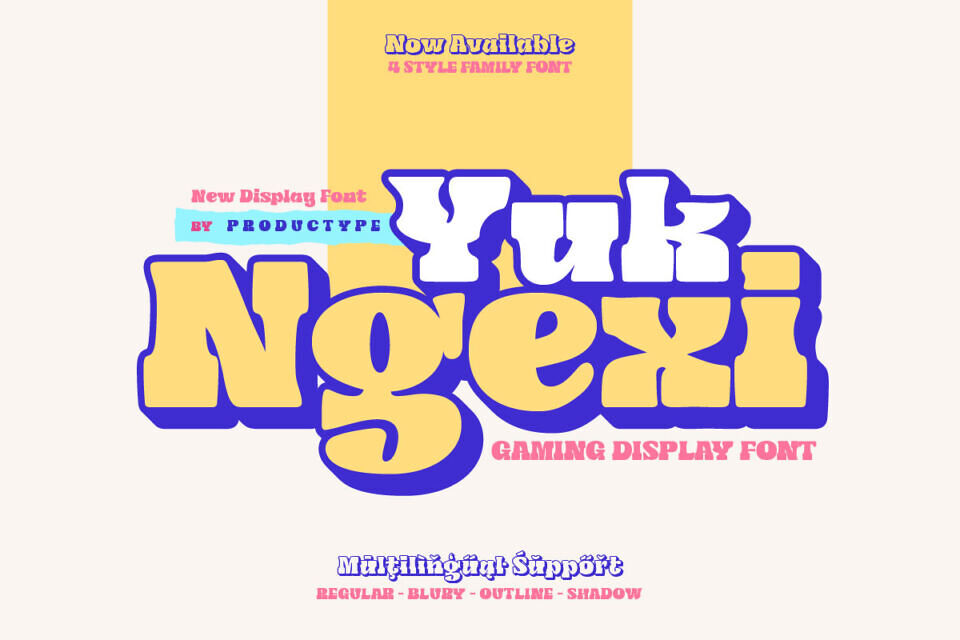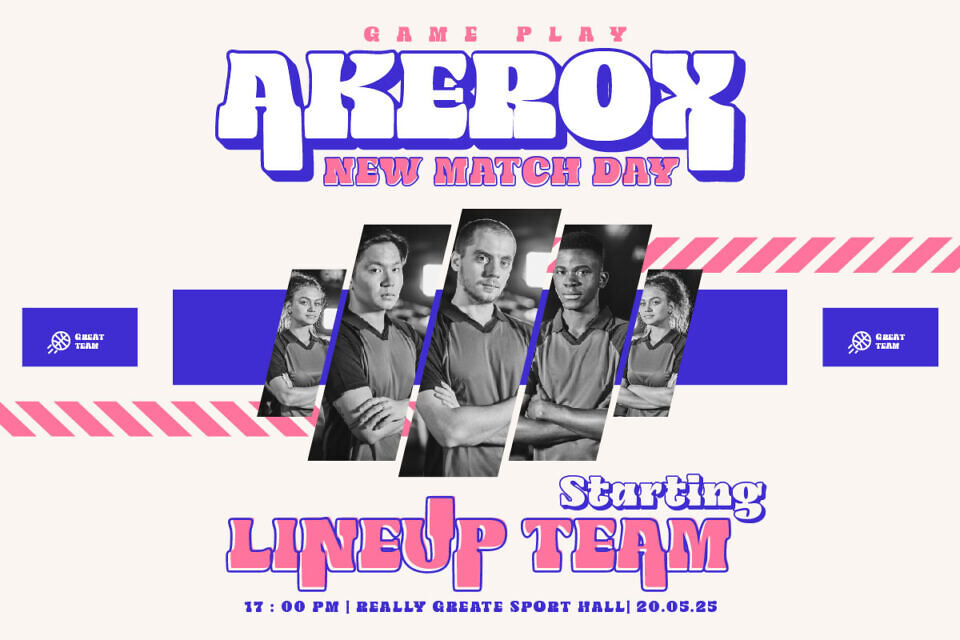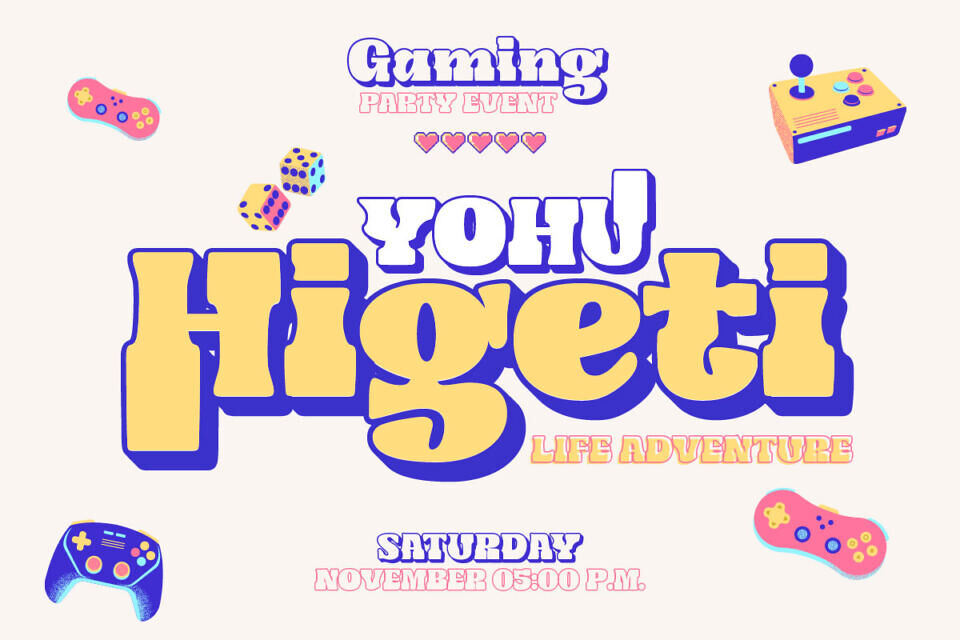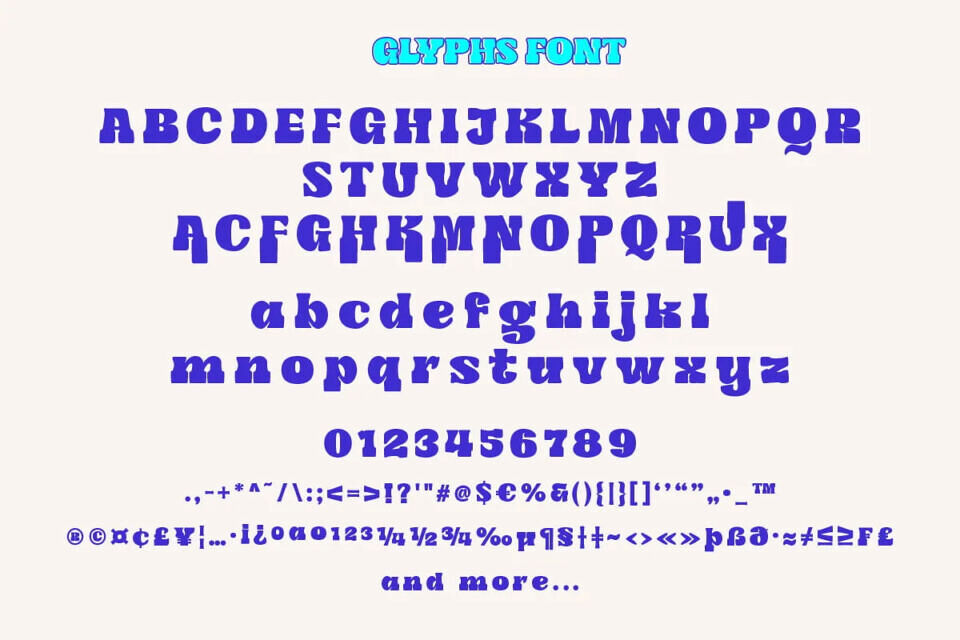
Yuk Ngexi Font
Meet the Yuk Ngexi Font: Strong, Bold, and Fun in Gaming Style. Who says design has to be boring? With the Yuk Ngexi Font, you can bring a touch of power, thickness, and gaming style fun to your every project.
The Yuk Ngexi font is the perfect solution for various projects that require a unique theme. Whether it’s for movies, games, or streaming game events, this font provides unmatched appeal.This font is designed with a strong gaming touch, giving each character a bold and striking feel.